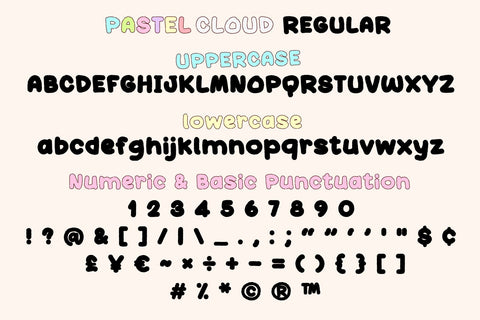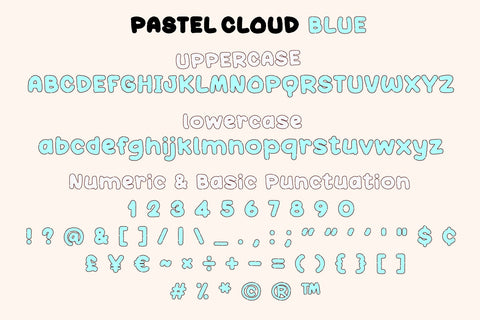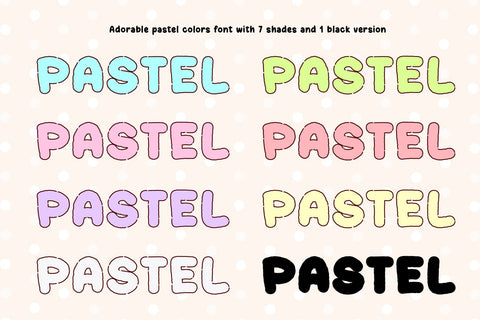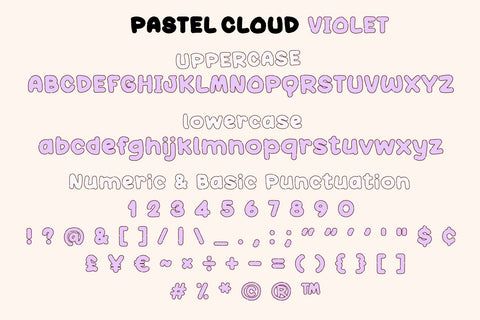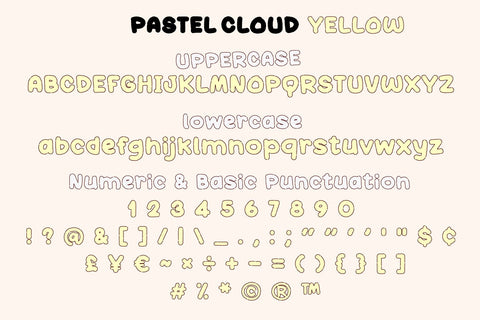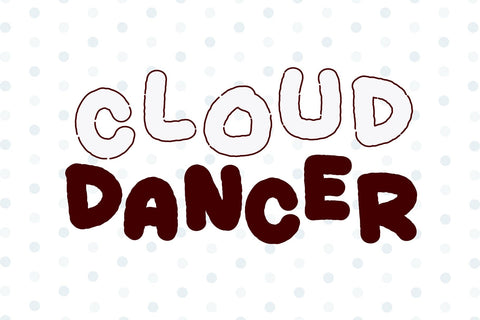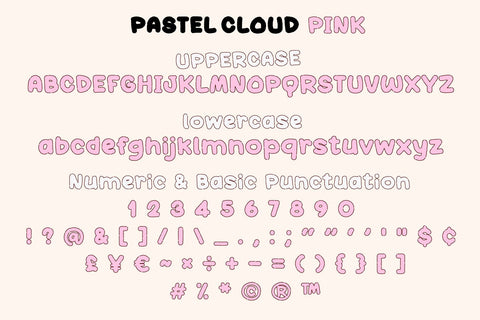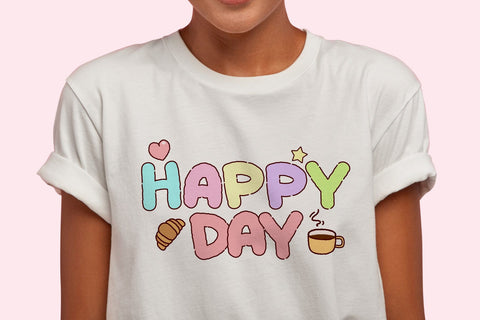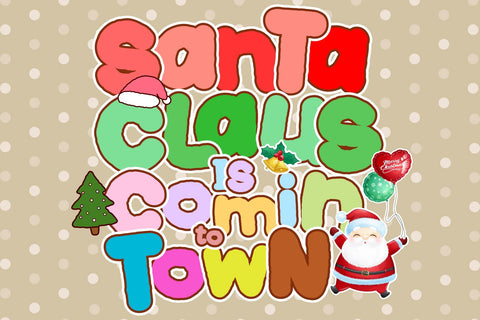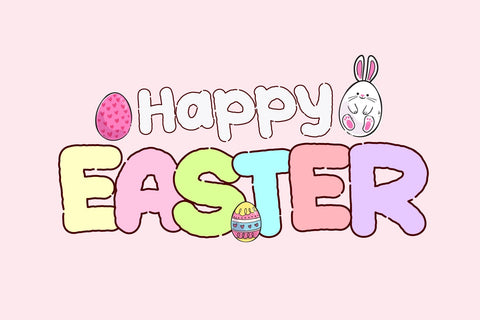
Pastel Cloud
Introducing Pastel Cloud – an enchanting and plush hand-drawn font, beautifully brushed in gentle hues of pastel colors. Crafted with seven soothing pastel color styles and a classic black version, it effortlessly illuminates both whimsical and crisp design concepts. This all-in-one font is deliberately curated for every occasion, event, and festivities, making it a versatile favorite. From the festive cheer of Christmas and Valentine’s Day to springtime Easter and heartwarming birthdays, Pastel Cloud sprinkles its magic ubiquitously. It’s equally appealing for children’s projects, lending an invigorating feel to café branding, and bringing a unique charm to product packaging. Perfect for decorative stickers and trendy t-shirts, Pastel Cloud is the font that paints joy in every stroke.